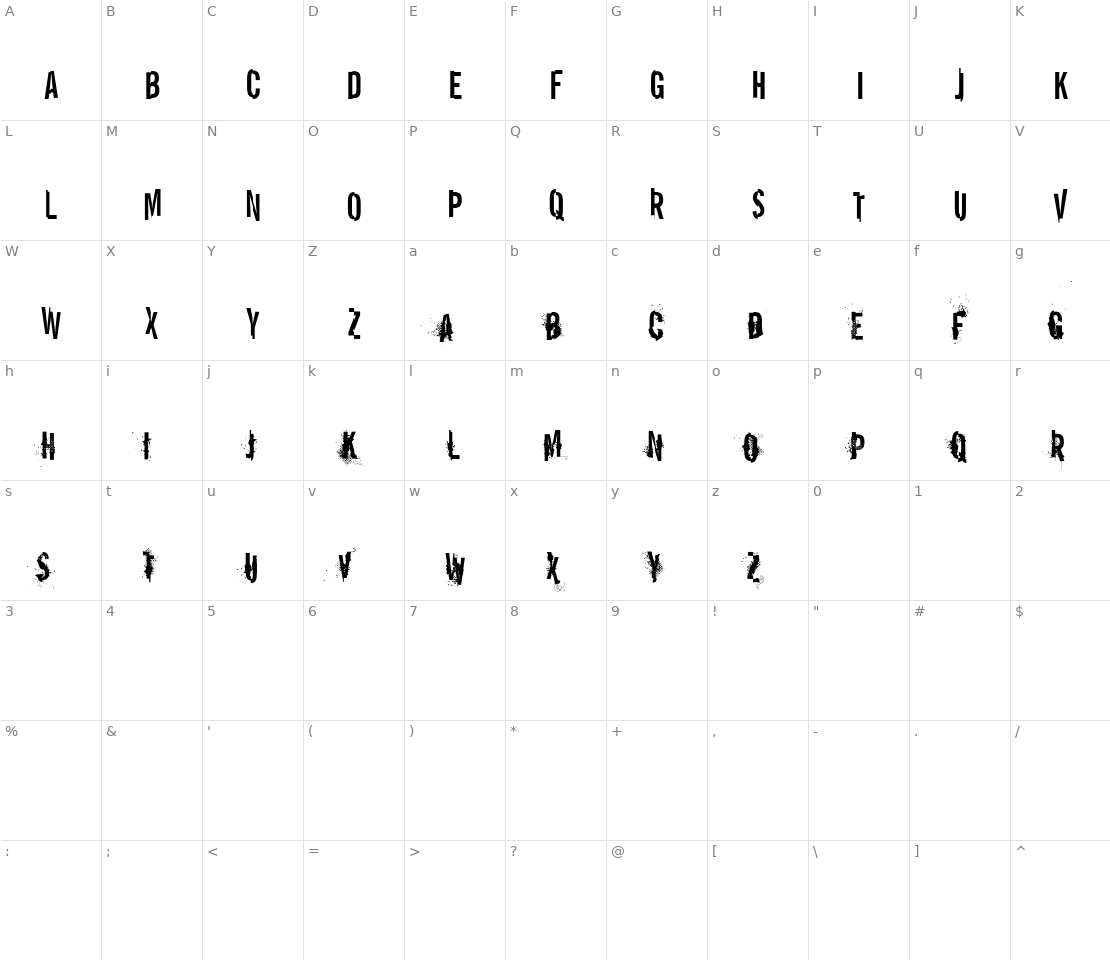
VTKS Report Error
by Douglas Vitkauskas · Website
VTKS Report Error is a condensed, distressed display face from Douglas Vitkauskas with letterforms that look like they're dissolving and dripping, as if printed on something wet and left to decay. The rough, grungy texture and dark personality make it a natural fit for horror posters, haunted house flyers, and anything that needs to feel unsettling. It reads best at large sizes where the corroded details and uneven edges can do their work.